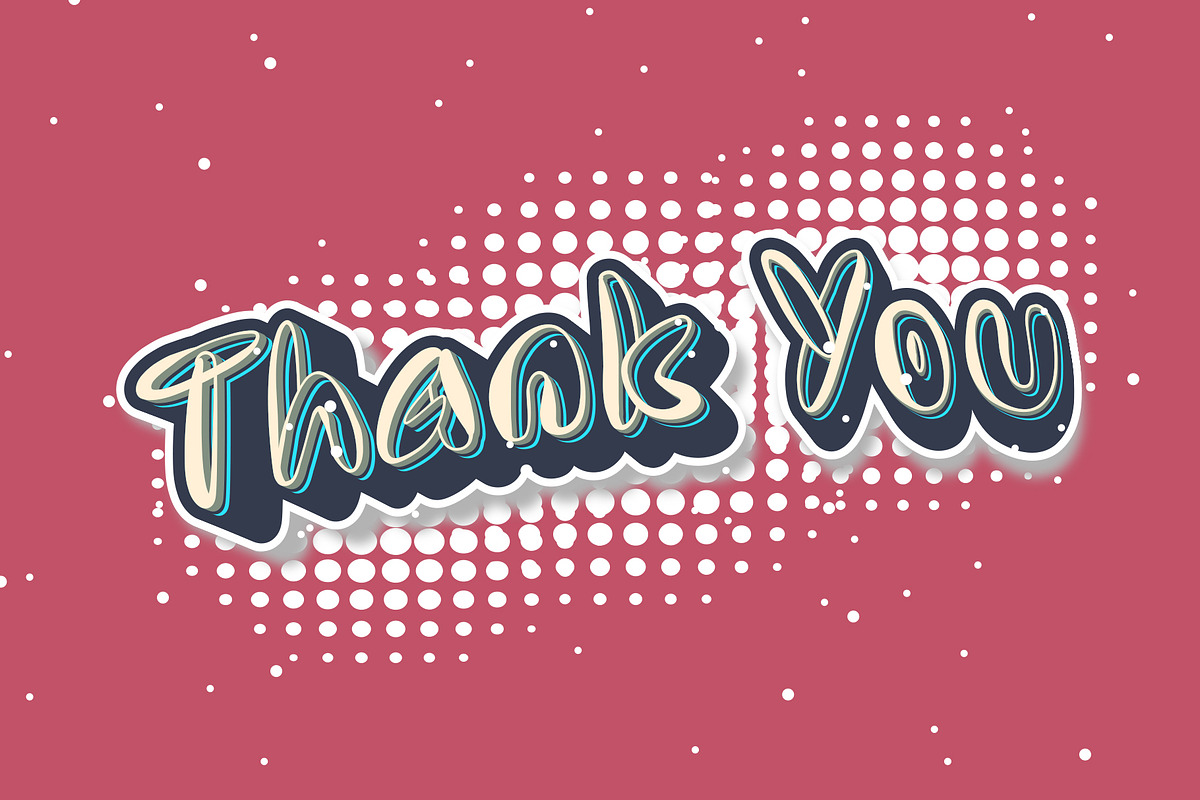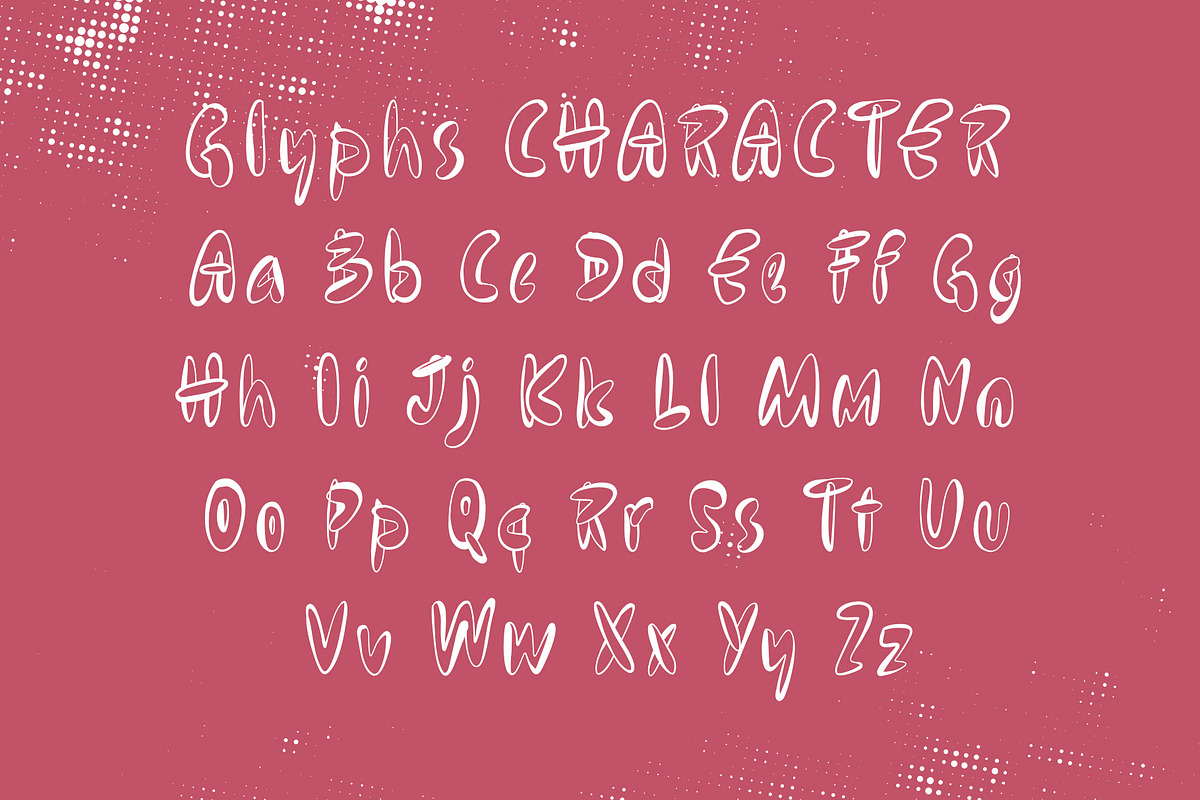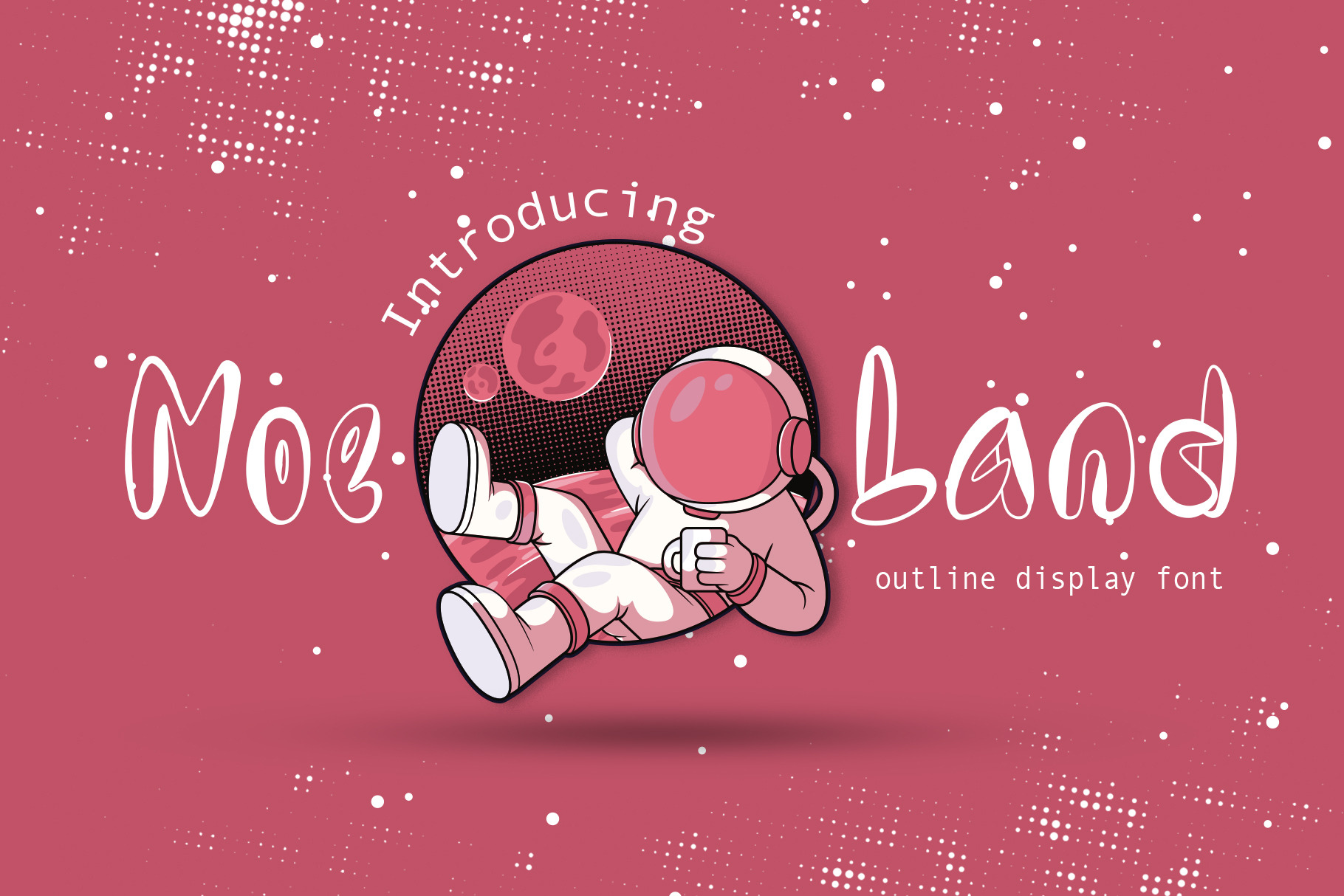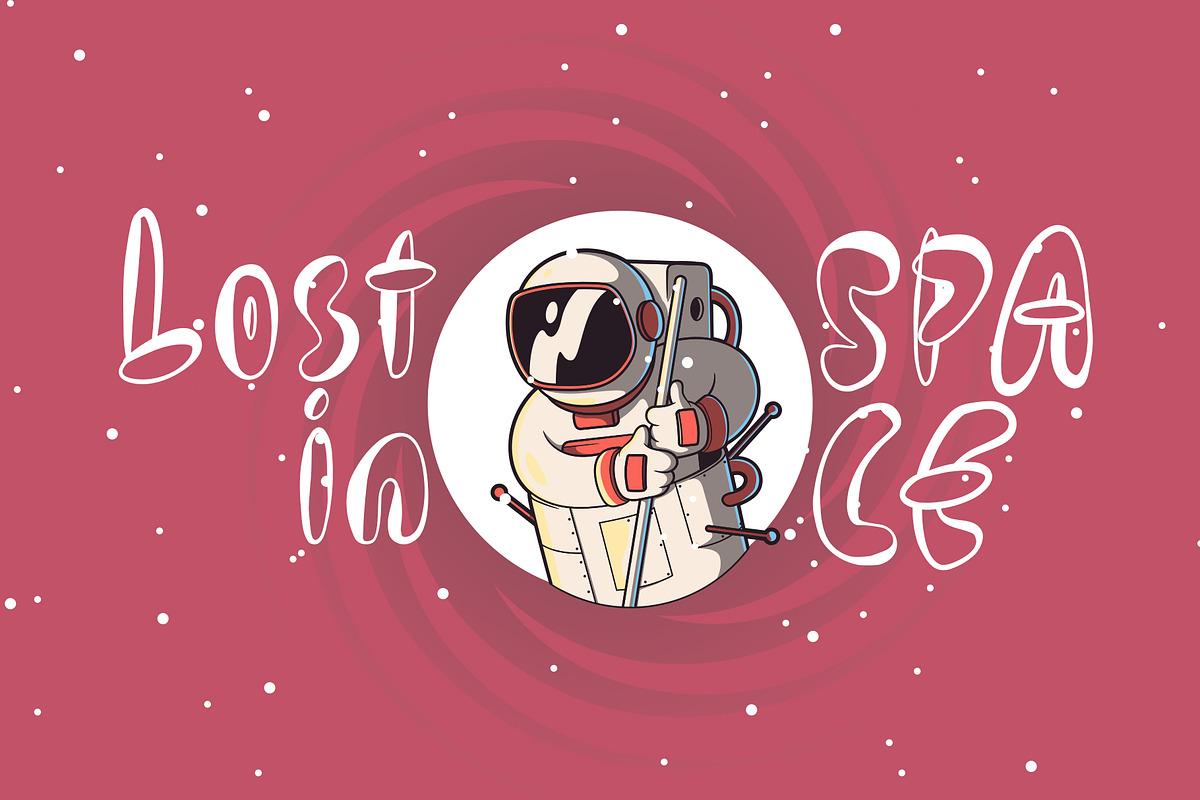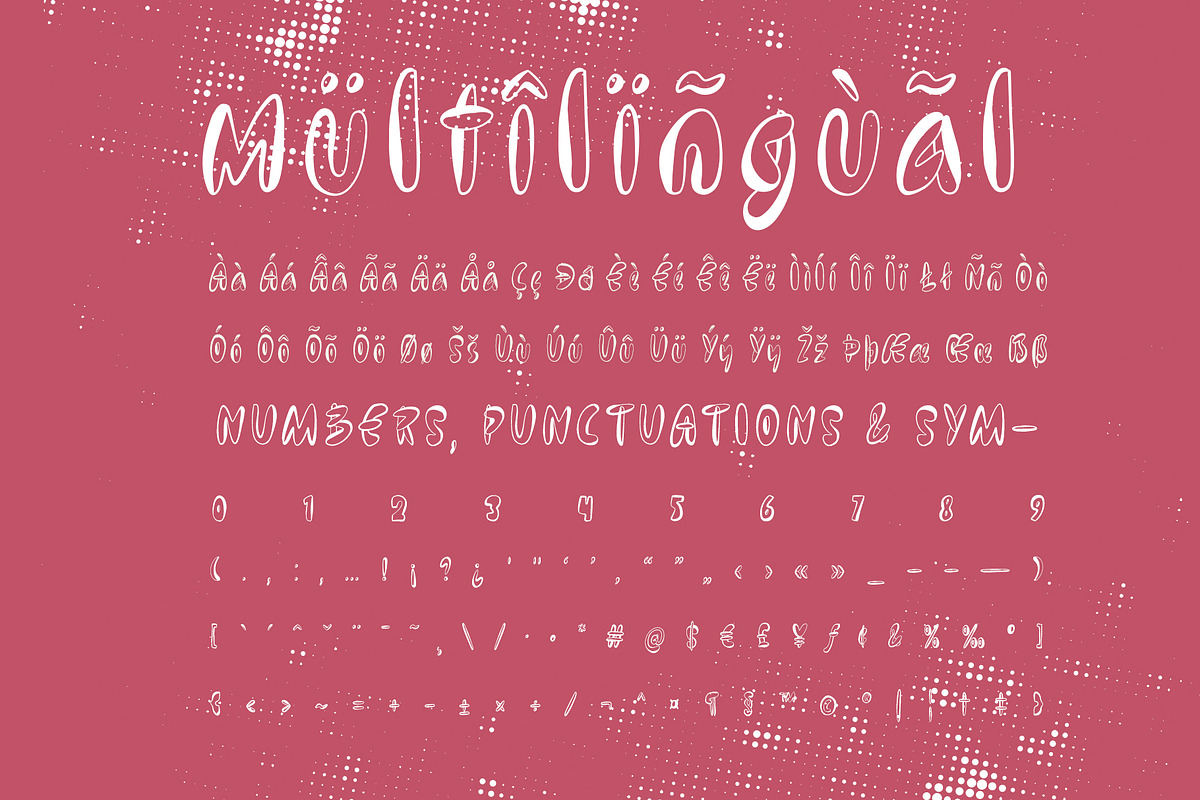
Noe Land Display Font
Noe Land is a font that embodies the theme of freedom. Designed with boldness and exploration, it represents the spirit of independence and limitless creativity. With its unique and expressive characteristics, Noe Land provides a daring and captivating look for various design projects.
The history behind the creation of this font began with our desire to celebrate freedom and creativity. Inspired by individuals' spirit to express themselves in unique and different ways, Noe Land was born as an effort to provide a tool for designers and creators to celebrate freedom in their designs.
In the process of creating this font, we explored various letter forms and details that depict freedom and uniqueness. Each letter and character in Noe Land showcases free-flowing lines, eccentric shapes, and elements that represent the space for uninhibited expression. The font invites users to break free from conventional boundaries and explore their creativity with complete freedom.
Noe Land is well-suited for design projects that aim to convey the spirit of freedom, such as posters, logos, merchandise, and designs that seek to express boldness and uniqueness. The font leaves a daring and refreshing impression, encouraging users to unleash their imagination and push the boundaries of creativity.
By using the Noe Land font in your designs, you can bring captivating elements of freedom and uniqueness to every project. The font allows you to tell a different story and express ideas in a unique and engaging way. Embrace the freedom in your designs with the Noe Land font.